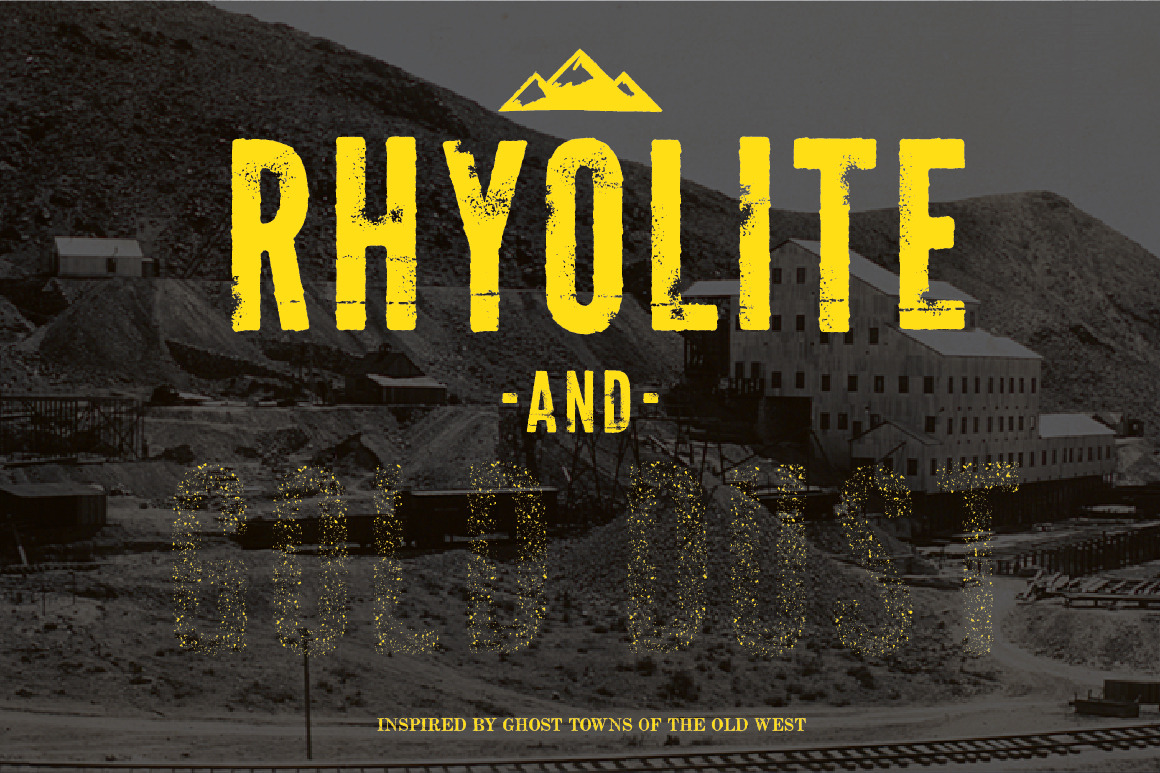
Rhyolite + Gold Dust Fonts
I love ghost towns and all things weathered. This worn-edge font is inspired by the old mining town of Rhyolite, Nevada that has long since seen its heyday. Rhyolite's few remaining walls are weathered wood, pock-marked sandstone and crumbling granite and I wanted to pay tribute to those souls who dared to mine in this desolate landscape.
- GOLD DUST might display poorly on screen at smaller sizes than the preview sample sizes listed above. This is meant to be a display at larger sizes.